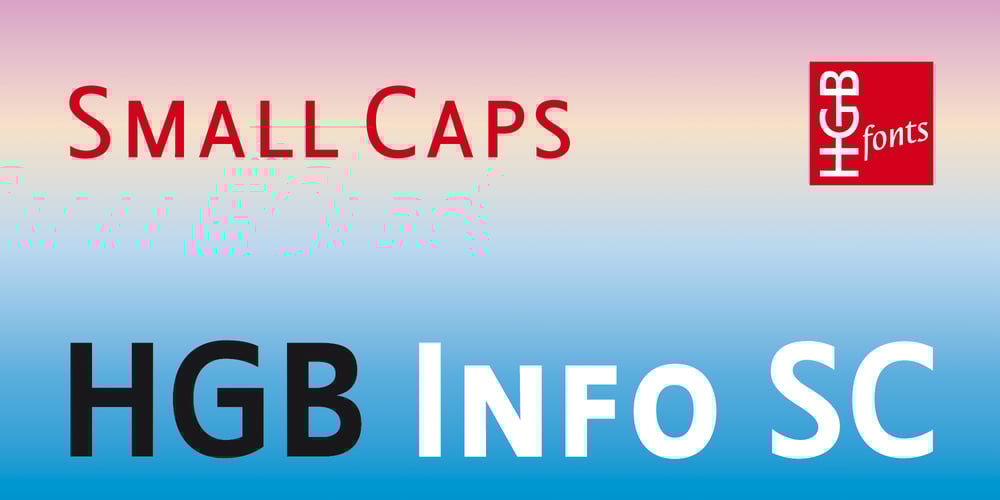
HGB Info SC Font Family was designed by Hellmut G. Bomm and published by HGB fonts. HGB Info SC contains 4 styles and family package options. It’s nice when a font provides old style figures, small caps and alternate letters. But what if my typesetting program doesn’t support Open Type features? The solution may be old-fashioned, but it’s effective: the variants are placed in separate font families: Standard, Old Style Figures (OSF), and Small Caps (SC). Any word processor can handle it. HGB Info SC adds real Small Caps to HGB Info.